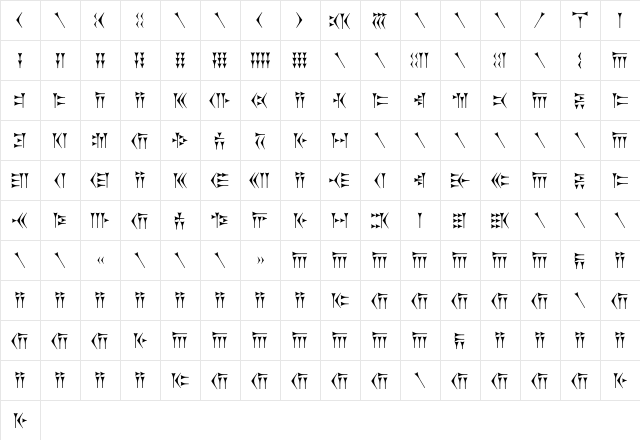
Zarathustra Regular
Design Context for Zarathustra Typeface
Zarathustra is a composed and adaptable typeface that performs quietly and consistently across a wide range of design contexts.